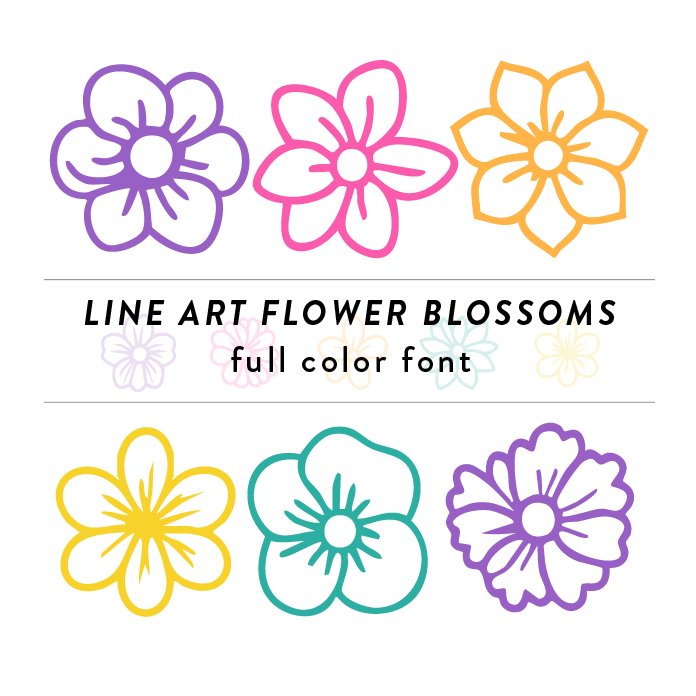
Color fonts will appear black if not used in a compatible program. This font type should be used with Silhouette Studio to appear in color. These summer blossoms are bright and vibrant for apparel, home decor, easter, and much more!